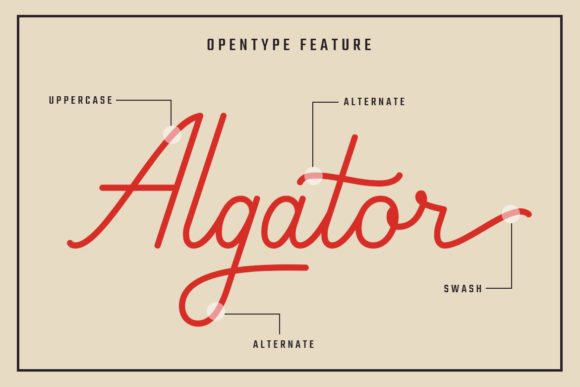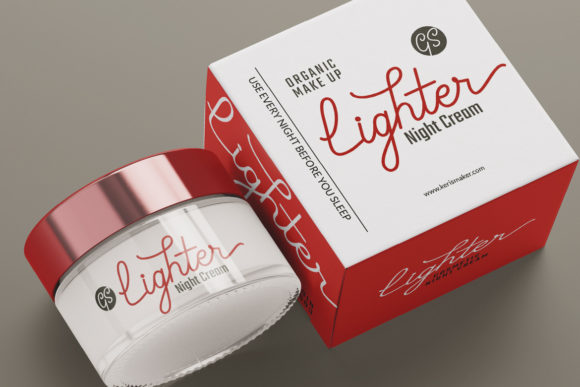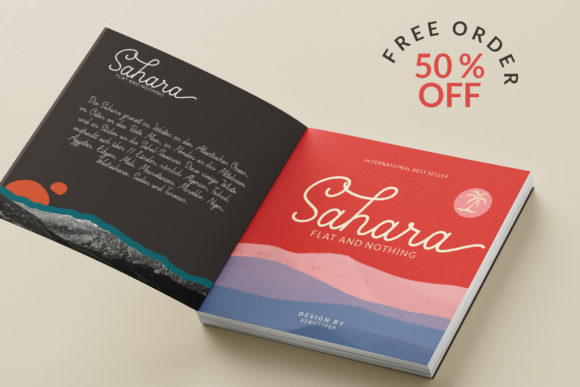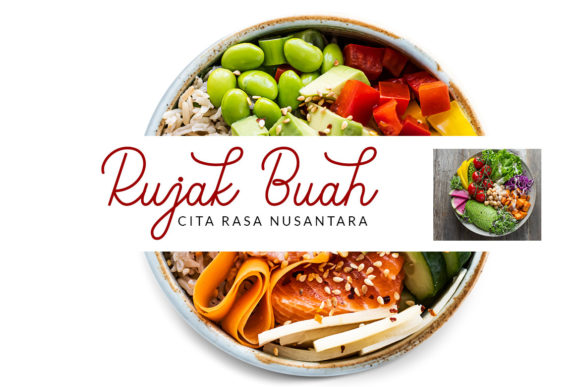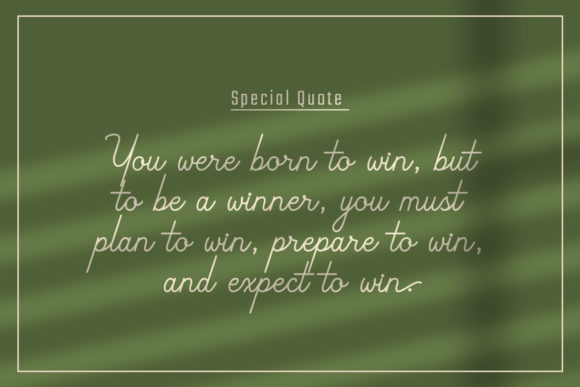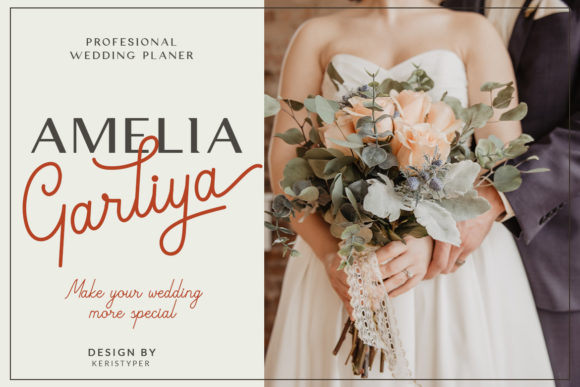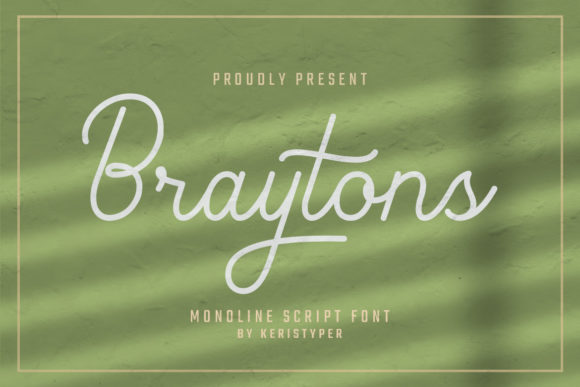
Braytons Font: Elevate Your Designs with a Vintage Touch
Are you searching for a font that adds a touch of elegance and sophistication to your designs? Look no further than Braytons Font, a beautiful flowing script font that exudes a vintage charm. With its unique and timeless style, Braytons is perfect for designers and crafters looking to create stunning visual content.
The Unique Characteristics of Braytons Font
Braytons Font is a script font that boasts an incredibly distinct and timeless style. Its flowing curves and vintage touch make it an ideal choice for a wide range of design projects, from branding and advertising to packaging and digital media. The font’s unique characteristics include:
- Flowing Script Style: Braytons Font features a beautiful, flowing script style that adds a touch of elegance to any design.
- Vintage Touch: The font’s vintage touch gives it a classic, timeless feel that’s perfect for designers looking to create nostalgic or retro-inspired designs.
- PUA Encoded: Braytons Font is PUA (Private Use Area) encoded, which means that you can access all of the glyphs and swashes with ease. This makes it easy to customize your designs and add unique flourishes.
Why Choose Braytons Font?
So why should you choose Braytons Font for your design projects? Here are just a few reasons:
- Unique and Timeless Style: Braytons Font has a unique and timeless style that’s sure to make your designs stand out.
- Ease of Use: The font is PUA encoded, making it easy to access all of the glyphs and swashes.
- Versatility: Braytons Font is perfect for a wide range of design projects, from branding and advertising to packaging and digital media.
- High-Quality Design: The font is designed to high-quality standards, ensuring that your designs look professional and polished.
How to Use Braytons Font in Your Designs
Using Braytons Font in your designs is easy. Here are a few tips to get you started:
- Pair it with Other Fonts: Braytons Font pairs well with other fonts, so don’t be afraid to experiment with different combinations.
- Use it for Headings and Titles: The font’s flowing script style makes it perfect for headings and titles.
- Add Swashes and Glyphs: Use the font’s PUA encoded glyphs and swashes to add unique flourishes to your designs.
- Experiment with Colors and Textures: Don’t be afraid to experiment with different colors and textures to add depth and interest to your designs.
Braytons Font is perfect for designers and crafters looking to create stunning visual content. Whether you’re working on a branding project, creating digital media, or crafting packaging, this font is sure to elevate your designs.
As a designer or crafter, you know how important it is to have access to high-quality design assets. Braytons Font is a valuable addition to any design library, and its unique style is sure to inspire your creativity.
| Font Name | Braytons Font |
| Author | Keristyper |